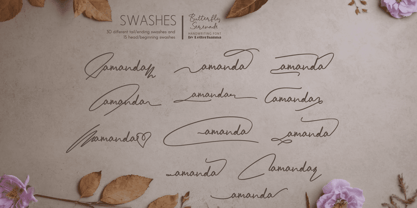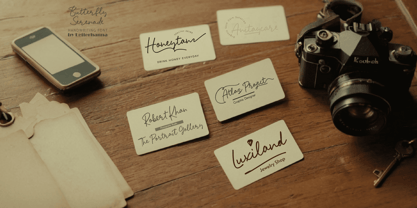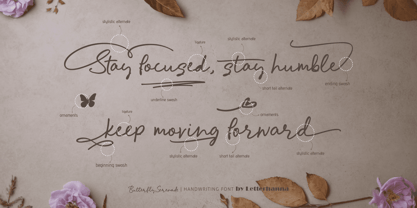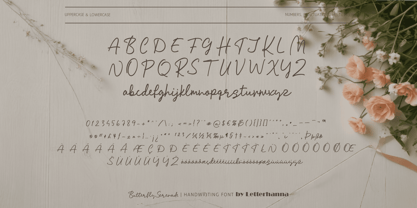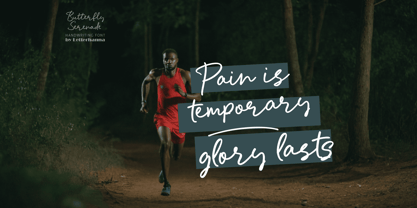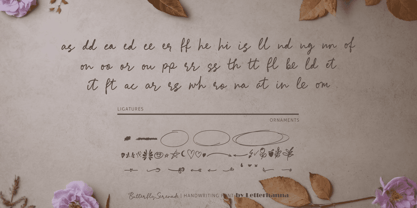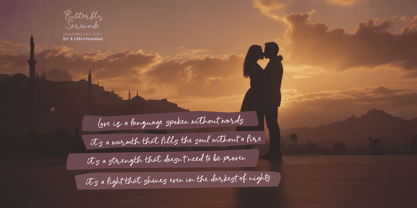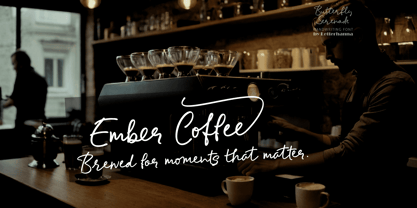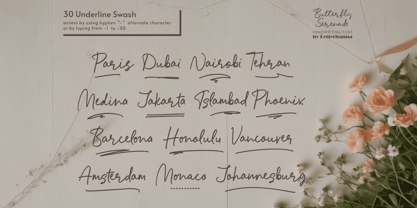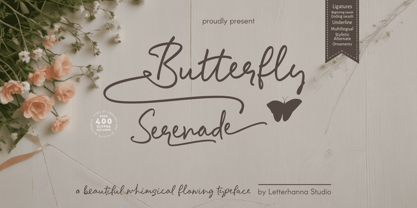
Butterfly Serenade
by Letterhanna Studio
The Butterfly Serenade Font Family was designed by Rinaldo Hasibuan and published by Letterhanna Studio. Butterfly Serenade contains 1 styles. More about this family
Introducing Butterfly Serenade, a whimsical handwriting script font that dances across the page with effortless charm. Inspired by the graceful flutter of butterfly wings, this font combines delicate loops and playful flourishes to create a light, airy feel that’s perfect for adding an enchanting touch to invitations, greeting cards, or whimsical branding. Each letter is crafted to bring a sense of warmth and creativity, making your designs as delightful and unique as a garden in bloom. Let Butterfly Serenade take your projects to new heights of elegance and imagination!
Designers: Rinaldo Hasibuan
Foundry: Letterhanna Studio